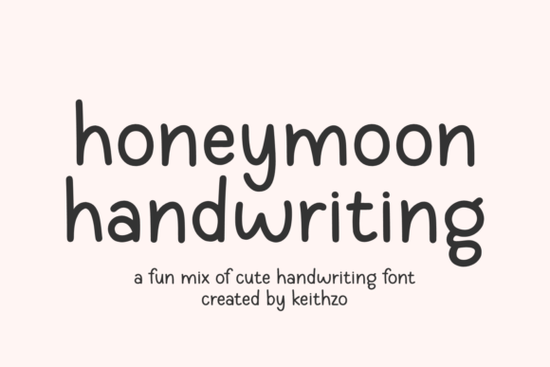
When you are looking for a typeface that feels personal without sacrificing clarity, finding the right balance can be tricky. The Honeymoon Handwriting font offers a solution for creators who want authenticity in their projects. It captures the look of neat handwritten notes with clean, consistent lines that remain easy to read. This makes it a strong choice for digital planners, stickers, and branding materials where warmth matters.
Many designers struggle with script fonts that look beautiful but are hard to decipher at smaller sizes. This typeface avoids that issue by maintaining rounded, open shapes. Whether you are designing a kids' poster or a logo for a small business, the organic charm helps connect with your audience on a human level. It brings a lively edge to designs that might otherwise feel too stiff or corporate.
What makes this font suitable for planners and stickers?
Digital planners and stickers require fonts that look good on screens and when printed small. The naturally rounded style of this handwriting font ensures that letters do not blur together when scaled down. Consistency is key here; each character holds its shape, which helps maintain readability across different contexts.
For crafters selling on print-on-demand sites, legibility can make or break a sale. Customers need to read the text on a mug or t-shirt instantly. This font's clean lines provide that clarity while keeping the playful vibe. It works well for quotes, daily affirmations, or labeling sections in a planner. The optimistic vibe resonates with people looking for positivity in their daily tools.
How does it compare to other script options?
There are many handwriting styles available, but not all offer the same level of versatility. Some scripts are too messy for professional use, while others are too rigid. If you enjoy this style, you might also explore similar options to see what fits your specific project needs.
Is it readable for small business branding?
Readability is often the biggest concern when choosing a script for branding. You want your logo to be unique but also functional on business cards and social media headers. This font resonates with a sweet vibe without sacrificing function. The strokes are distinct enough to be recognized even when viewed quickly on a mobile device.
Small businesses in the crafting, coaching, or lifestyle sectors often benefit from this approachable look. It suggests that there is a real person behind the brand. However, always test your logo in black and white as well as color. Ensure the spacing between letters works well when your business name is written out fully.
What are the best ways to pair this typeface?
Using a handwriting font alone is great for headlines, but body text usually needs a sans-serif or simple serif partner. Pairing it with a clean, neutral font allows the handwriting to stand out as the accent. Do not mix it with another complex script, as this creates visual noise.
- Use a bold sans-serif for main headings to create contrast.
- Keep body text simple and left-aligned for easy reading.
- Ensure there is enough white space around the handwritten elements.
- Limit the use of the script font to key phrases or logos.
Remember that less is often more. Let the organic charm of the handwriting shine by giving it room to breathe. Overusing it can make the design feel cluttered. Stick to one or two focal points per page or image.
Quick Checklist for Using Handwriting Fonts